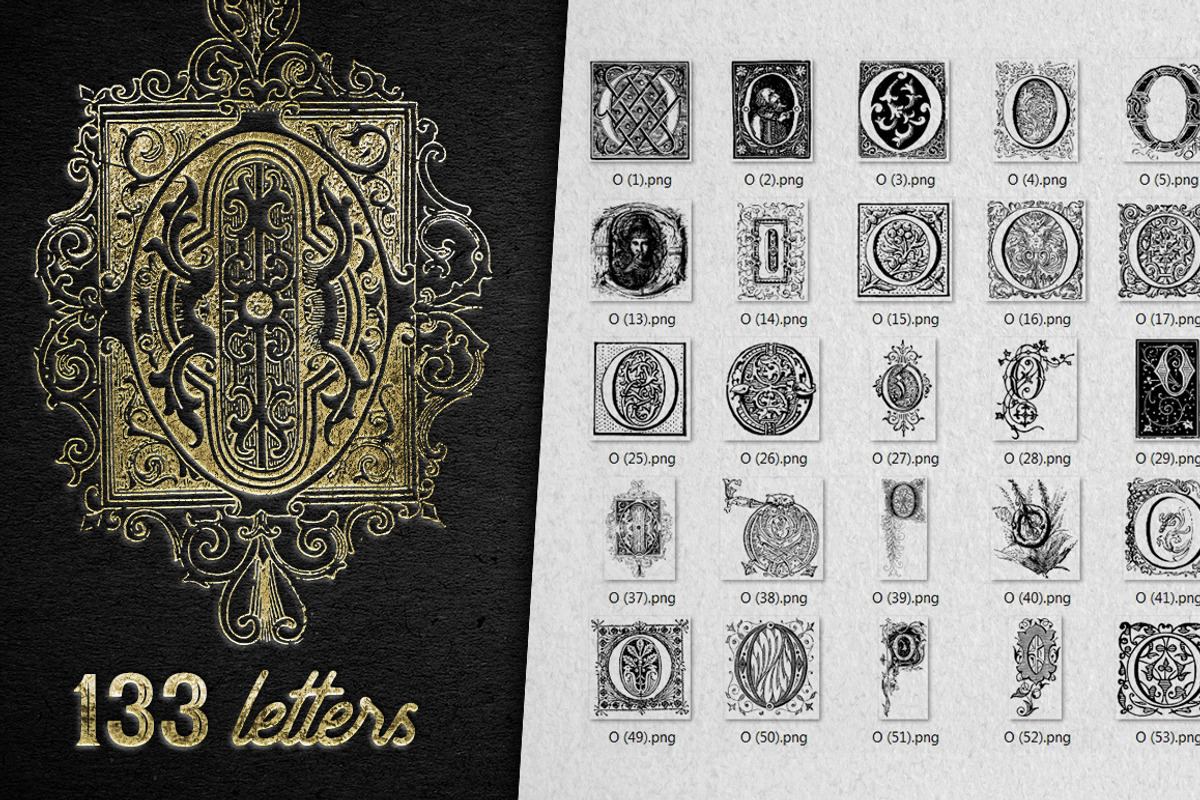
Vintage Letter O Vector And PNG Free Download
Vintage Letter O Vector And PNG Free Download is a beautifully crafted decorative letter, perfect for adding a classic, antique touch to your design projects. Whether you're creating monograms, logo elements, stationery, or vintage-inspired posters, this ornate letterform brings timeless elegance and detailed craftsmanship to your work.